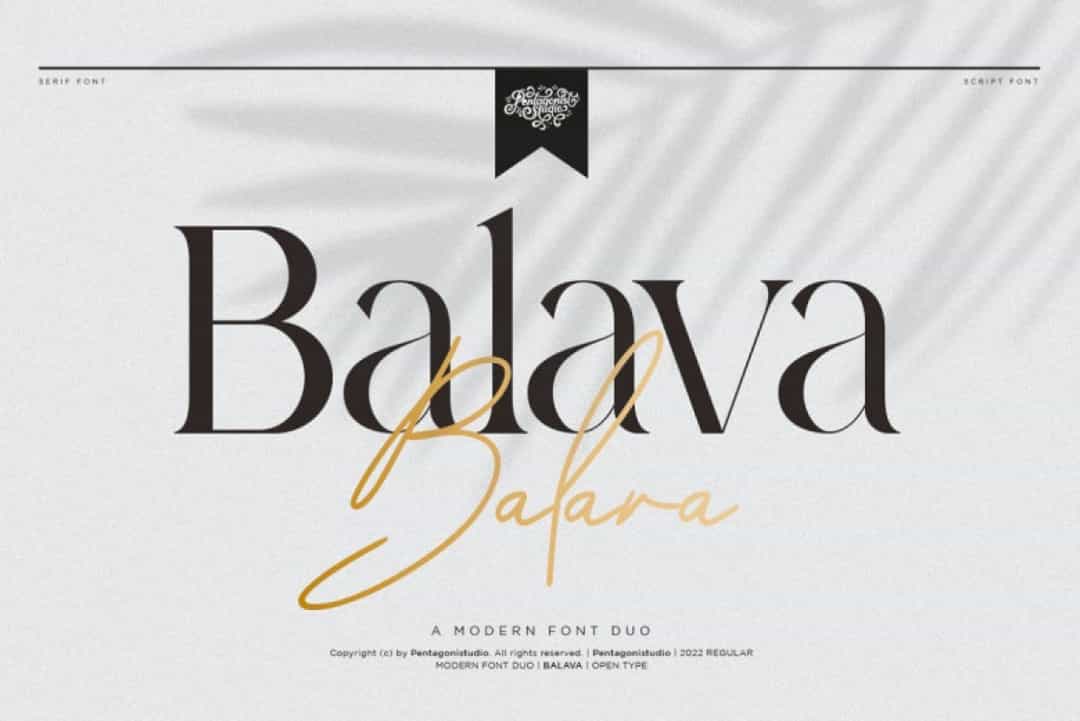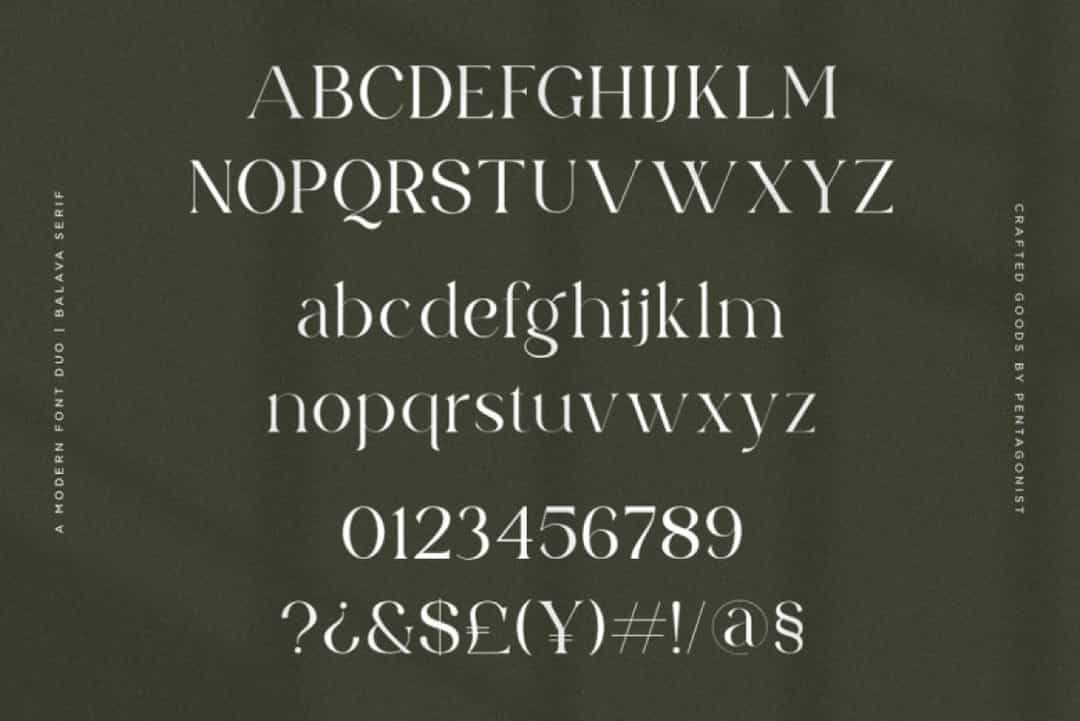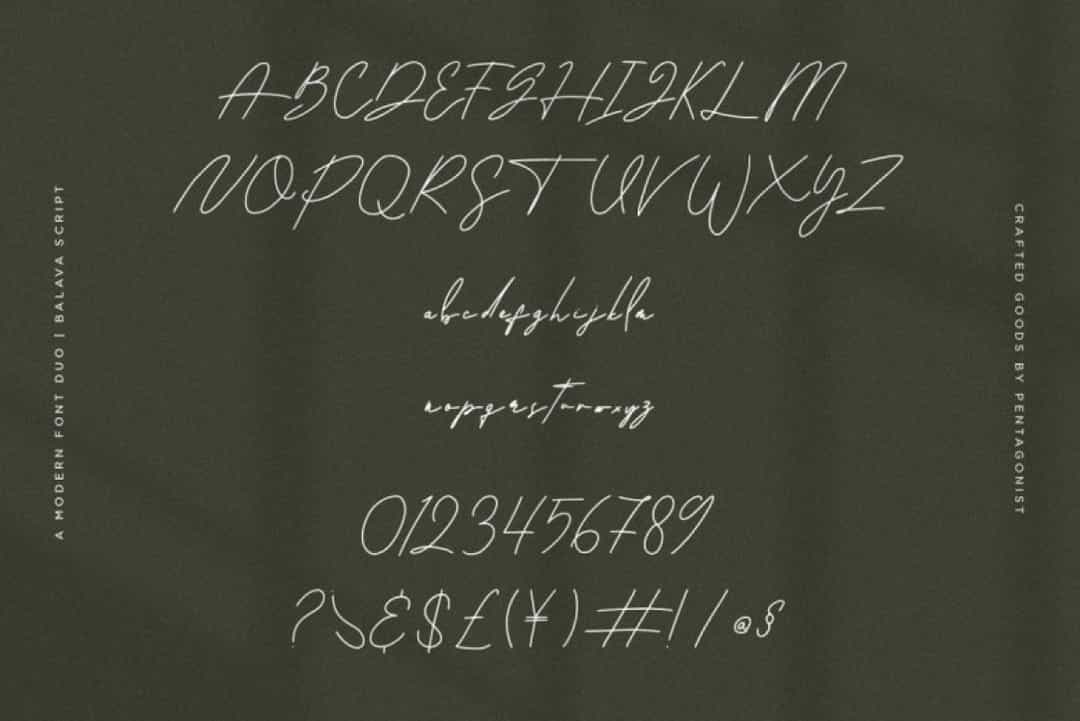
Discover Balava Font, part of the Handwritten Serif collection—a versatile and unique font perfect for adding a personal touch to your projects. Download it for free and enjoy crafting designs with style, from invitations to social media posts. This font is available exclusively for personal use, giving you the freedom to create without limits. Unlock your creativity with Balava Font today!
Balava is an outstanding modern and contemporary duo serif, script font with endless creative potential! Play around with both fonts together or individually for stunning results – PUA encoded means easy access to all these glyphs and swashes! Ideal for branding, logos wedding items such as fashion cards look books marketing promotional whenever the aim is to appear classy yet casual.